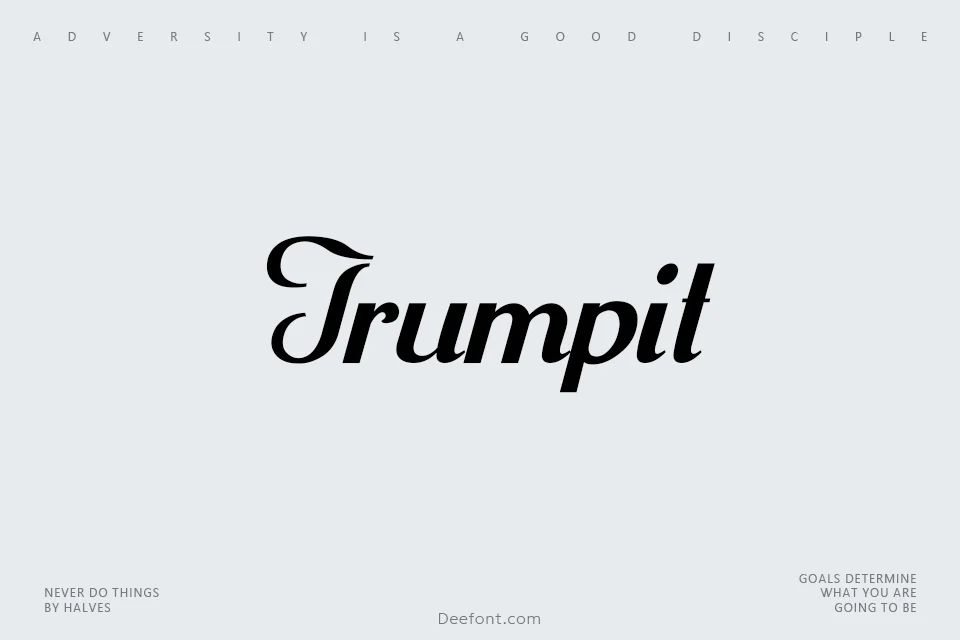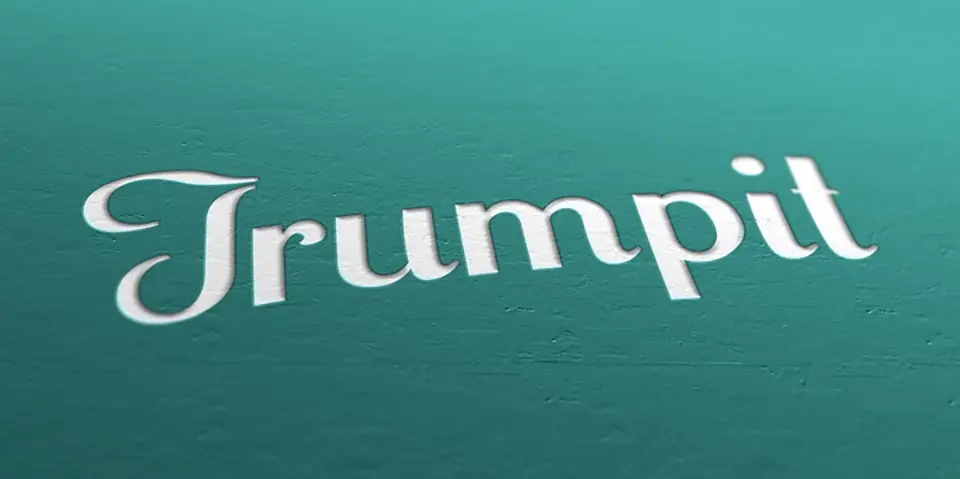
Trumpit Font
Trumpit is a sophisticated cursive script font crafted by Typesgal, featuring elegant and flowing letterforms perfect for branding, invitations, headlines, and premium design applications. With its graceful flourishes and classic charm, this handwritten typeface combines vintage elegance with contemporary appeal. The refined letterforms and condensed spacing enhance its sophisticated appearance, making it ideal for creating upscale typography that stands out in any creative project.